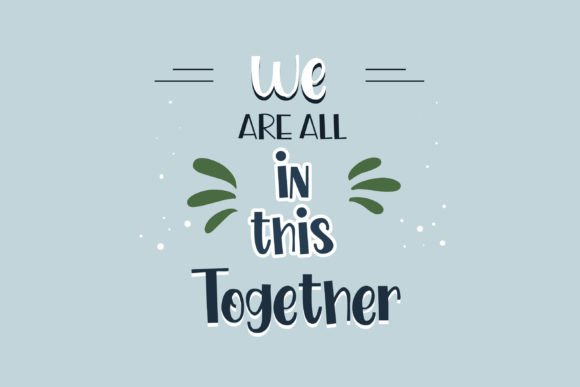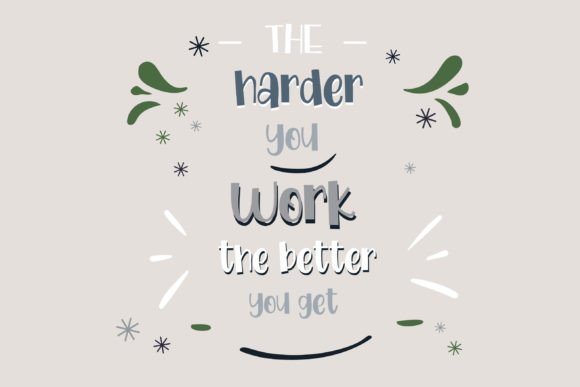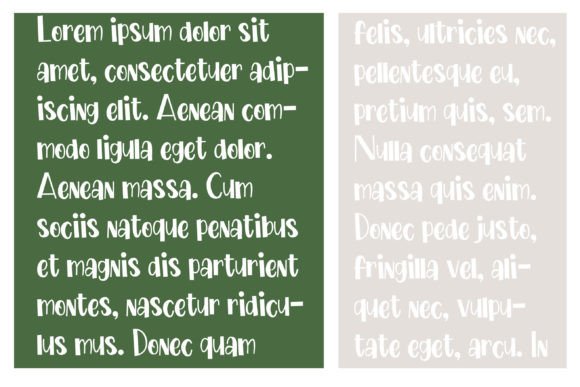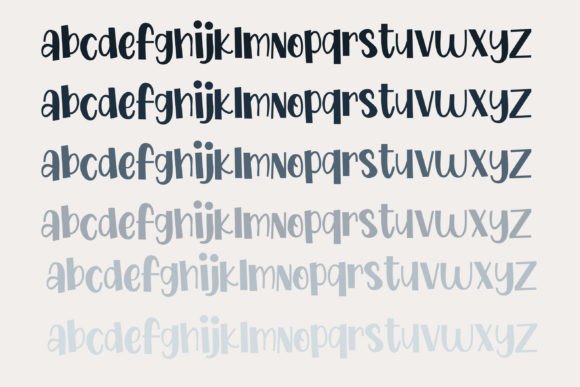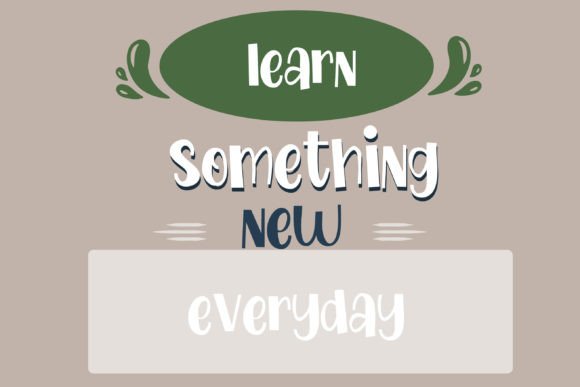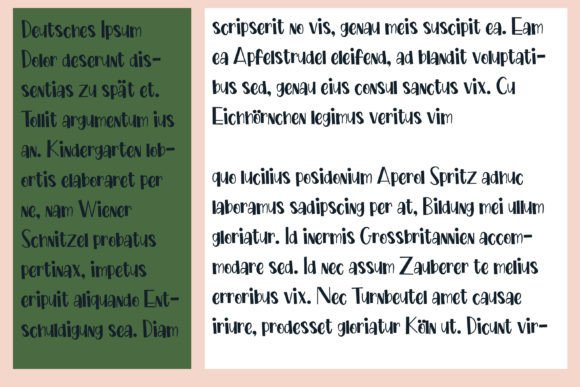
Discover the Charm of Chagrin Font: A Hand-Crafted Sans Serif for Creative Projects
In the world of typography, fonts play a crucial role in conveying the tone and personality of a message. For designers and crafters, finding the perfect font can make all the difference in creating visually appealing and effective designs. One such font that has gained popularity for its unique charm is the Chagrin Font. This hand-crafted sans serif font is whimsical, featuring a mix of thin and thick lines that give it a distinctive character.
A hand-crafted font, also known as a handwritten font, is a type of font that is designed to look like it was written by hand. These fonts are often used for invitations, greeting cards, and other items where a personal touch is desired. Handwritten fonts can range from formal to informal, making them versatile for various purposes. They can add a touch of elegance, playfulness, or sophistication to a design, depending on the style and context.
The Unique Features of Chagrin Font
Chagrin Font stands out for its hand-crafted, sans serif design. Sans serif fonts, as the name suggests, do not have serifs or small lines at the ends of the strokes. This gives them a clean and modern look. However, Chagrin Font adds a twist to this modern aesthetic with its hand-crafted, whimsical feel. The mix of thin and thick lines creates a dynamic and expressive appearance, making it perfect for designs that require a bit of personality.
Uses of Chagrin Font
The versatility of Chagrin Font makes it suitable for a wide range of projects. Here are some popular uses:
- Invitations and Greeting Cards: The whimsical nature of Chagrin Font makes it ideal for invitations, birthday cards, wedding cards, and other celebratory messages.
- Branding and Packaging: For businesses looking to add a personal touch to their branding, Chagrin Font can be a great choice. It works well for product labels, packaging, and promotional materials.
- Social Media Graphics: Create eye-catching social media posts with Chagrin Font. Its unique style can help your posts stand out in crowded feeds.
- DIY Projects and Crafts: Crafters and DIY enthusiasts can use Chagrin Font for various projects, such as handmade signs, banners, and decorative items.
Why Choose Chagrin Font?
There are several reasons why designers and crafters might prefer Chagrin Font for their projects:
- Unique Aesthetic: Chagrin Font offers a distinctive look that can set your designs apart from others.
- Versatility: Its hand-crafted, sans serif design makes it suitable for both formal and informal projects.
- Emotional Connection: The whimsical nature of the font can create an emotional connection with the audience, making your message more relatable and engaging.
Tips for Using Chagrin Font Effectively
To make the most of Chagrin Font, consider the following tips:
- Pair with Complementary Fonts: Combine Chagrin Font with simpler fonts to create contrast and hierarchy in your design.
- Adjust Line Spacing: Experiment with line spacing to ensure readability, especially in longer texts.
- Use Color Wisely: Choose colors that complement the whimsical nature of the font. Bright and pastel colors can work well.
Chagrin Font is a charming, hand-crafted sans serif font that can add a touch of whimsy and personality to your designs. Its unique mix of thin and thick lines, along with its versatile nature, makes it suitable for a variety of projects, from invitations and greeting cards to branding and DIY crafts. By understanding the characteristics and uses of Chagrin Font, designers and crafters can create visually appealing and effective designs that stand out.
Whether you’re a professional designer looking for a unique font to add to your collection or a crafter seeking to personalize your projects, Chagrin Font is definitely worth considering. Its ability to convey a sense of personality and charm can make your designs more engaging and memorable.